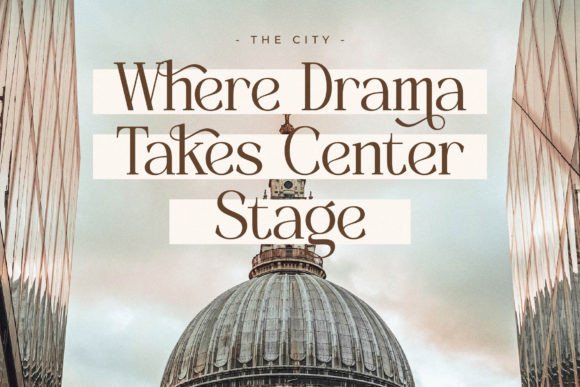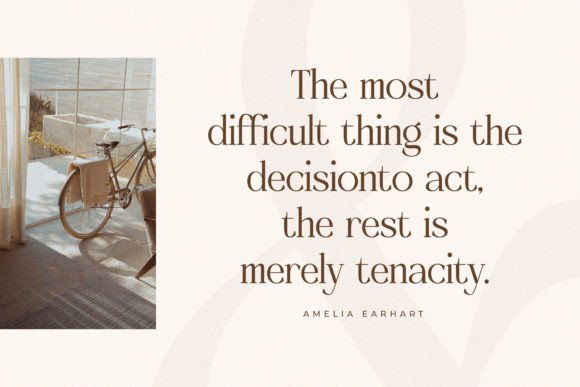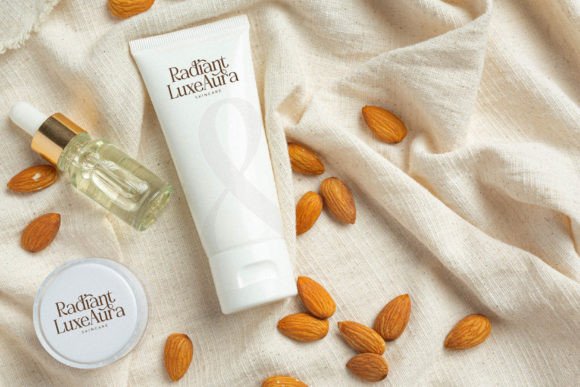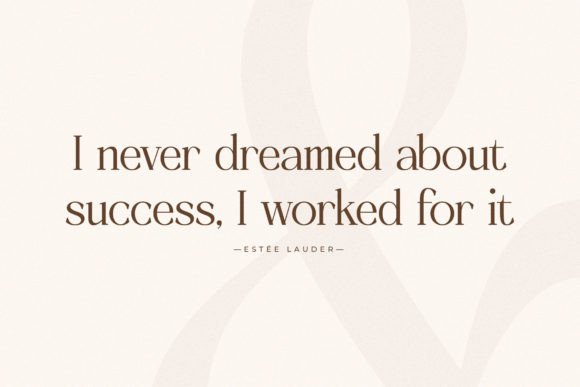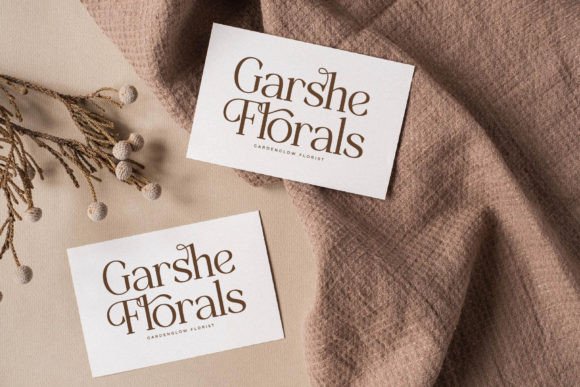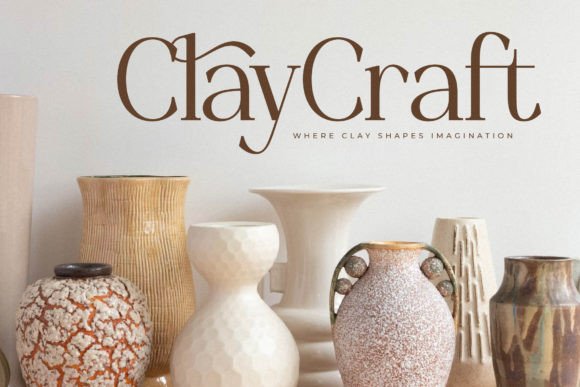
Introducing Gradeur Font: Elevate Your Designs with Elegance and Sophistication
In the world of typography, a font can make or break a design. It’s the foundation upon which creativity is built, and the right choice can elevate a project from ordinary to extraordinary. For designers and crafters seeking a typeface that exudes elegance, luxury, and modernity, look no further than Gradeur Font. Proudly presented, Gradeur is a serif typeface that boasts a unique style and a modern look, making it perfect for a wide range of applications.
What is Gradeur Font?
Gradeur Font is a meticulously crafted serif typeface that strikes the perfect balance between modernity and classic sophistication. Its unique design elements set it apart from more traditional serif fonts, offering a fresh perspective for designers looking to make a statement. Whether you’re working on a luxury logo, a book or movie title, a fashion brand, magazine, or any other project that demands a touch of elegance, Gradeur Font is the ideal choice.
Key Features of Gradeur Font
- PUA Encoded for Easy Access: Gradeur Font is PUA (Private Use Area) encoded, which means accessing its vast array of glyphs and ligatures is straightforward. This feature allows designers to explore a wide range of typographic possibilities without the complexity.
- Elegant and Luxurious: The font’s design is characterized by its elegant lines and luxurious feel, making it suitable for high-end branding, editorial design, and any project that requires a sophisticated look.
- Versatile: From elegant logos and titles to detailed lettering and quotes, Gradeur Font’s versatility makes it a valuable addition to any designer’s toolkit.
- Modern and Classic: Gradeur Font successfully merges modern typographic trends with classic serif elements, creating a timeless typeface that can be used across various design projects.
Use Cases for Gradeur Font
The applications for Gradeur Font are vast and varied. Here are a few ideas to get you started:
- Elegant Logos and Branding: Create a lasting impression with a logo that embodies luxury and sophistication.
- Book and Movie Titles: Add a touch of class to your titles with a font that commands attention and respect.
- Fashion Brands: Elevate your fashion brand’s visual identity with a typeface that speaks to elegance and style.
- Magazines and Editorial Design: Use Gradeur Font to create stunning editorial content that stands out.
- Clothes and Apparel Branding: Perfect for brands that want to convey a sense of luxury and quality.
- Lettering and Quotes: Bring your lettering projects to life with the unique charm of Gradeur Font.
Why Choose Gradeur Font?
In a sea of typefaces, Gradeur Font stands out for its unique blend of modernity and classic elegance. Its PUA encoding makes it incredibly user-friendly, allowing designers to focus on creativity rather than getting bogged down in technical complexities. Moreover, its versatility ensures that it can be used across a multitude of projects, making it a valuable investment for any designer or brand.
Gradeur Font is more than just a typeface; it’s a design statement. It’s perfect for professionals and creatives who are looking to infuse their projects with a sense of luxury, elegance, and modernity. With its unique style, PUA encoding, and versatile application, Gradeur Font is poised to become a go-to choice for designers and crafters around the world. Whether you’re working on a high-end brand, a creative project, or simply looking to elevate your typographic game, Gradeur Font is an excellent choice.